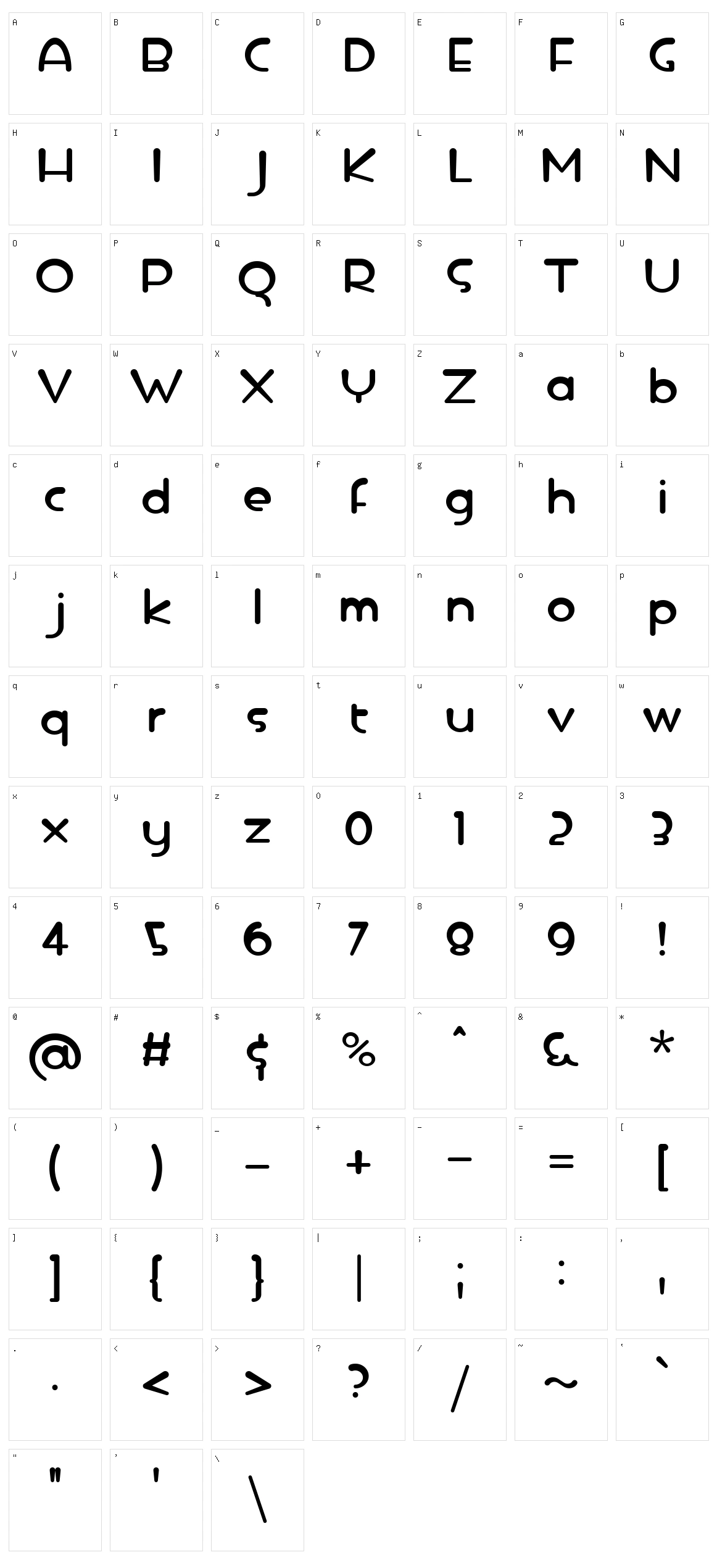
The free font Ice Drop is carefully designed by Vanillia, showcasing a thoughtful balance of creativity and usability and falls under the Groovy font style. When you download the ZIP file, it contains only 48.24 KB of font files, making it lightweight and quick to download. Please review the license details below to understand permitted usage and distribution rights. If license information is not available, we recommend using this font for personal projects only or contacting the author directly for commercial usage permissions.